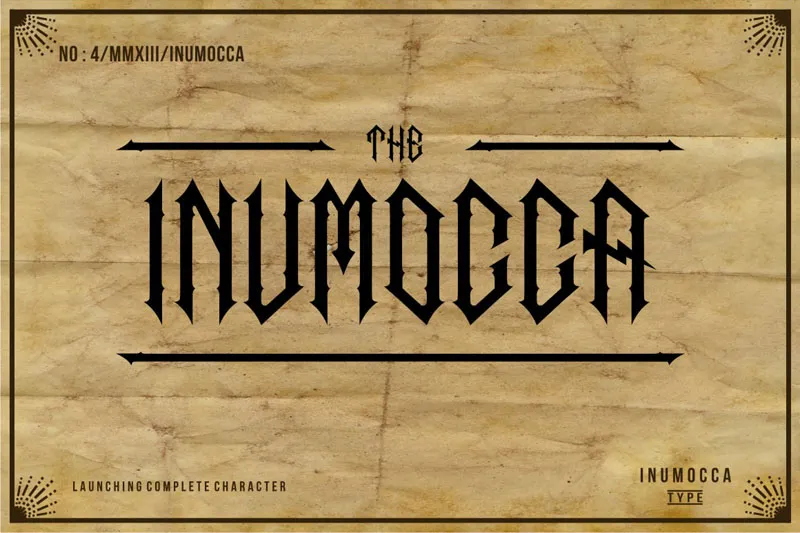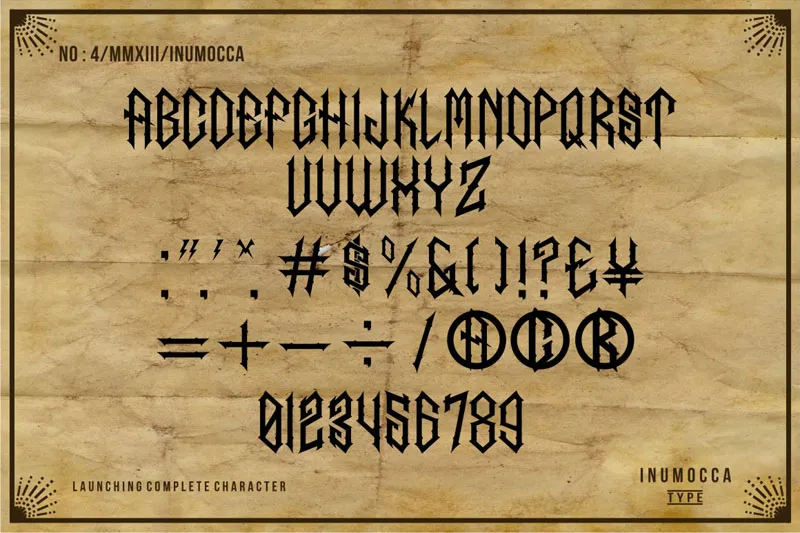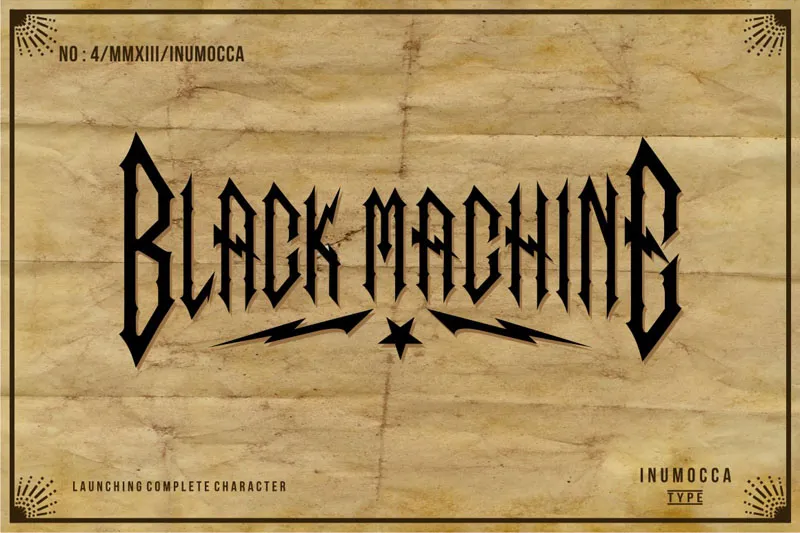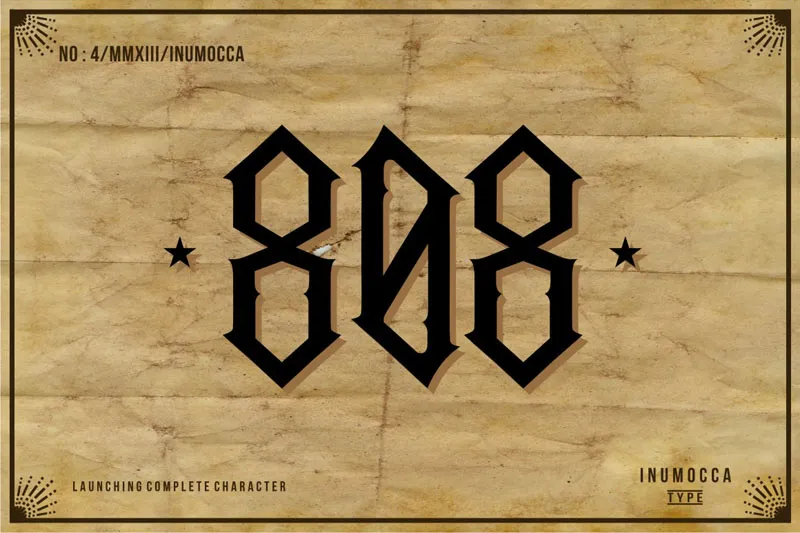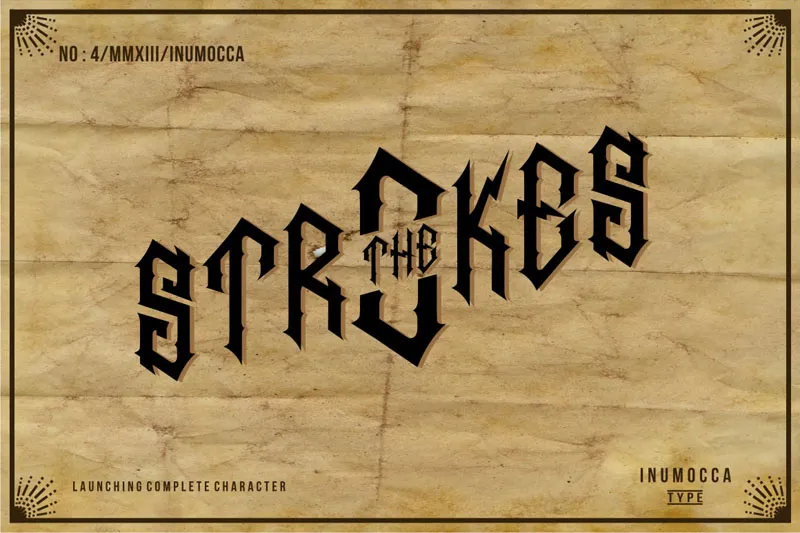
Listrik – Free Ancient Font
Embrace the Ancient Charm With this Ancient Font!
Reverse the clock and go back to the old times with the Free Ancient Font – Listrik.
This font, designed specifically to add a timeless, classic touch to your designs, makes them more than just plain beautiful.
Listrik is very easy to use and design. You can use it for creating a social media post, designing a t-shirt, creating school projects, printing projects, designing a product label, and so many other designing projects.
Whether for branding, packaging, posters, banners, marketing, or any other creation, Listrik serves as an ideal choice for every type of design.
Here's A Preview Of The Free Ancient Font!
The Inumocca
Black Machine Text
The Strokes Text Written Using The Ancient Font
808 Text Written
Alphabet & Special Characters Written Using The Ancient Font